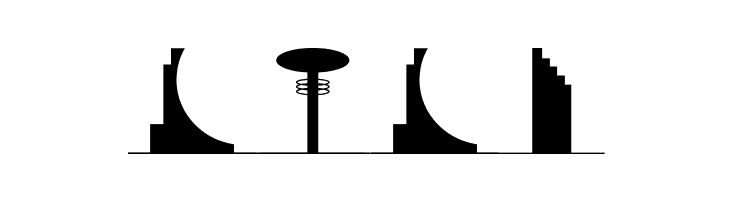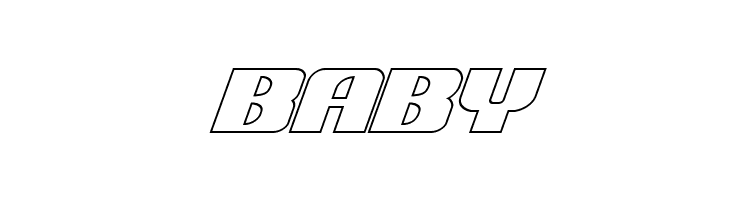
A bold, italicized outline font with a modern, geometric style.
A bold, geometric font with a military-inspired, stencil-like design.
A font of modern skyline silhouettes with a futuristic touch.
A bold, jagged font with a rugged, hand-cut appearance.